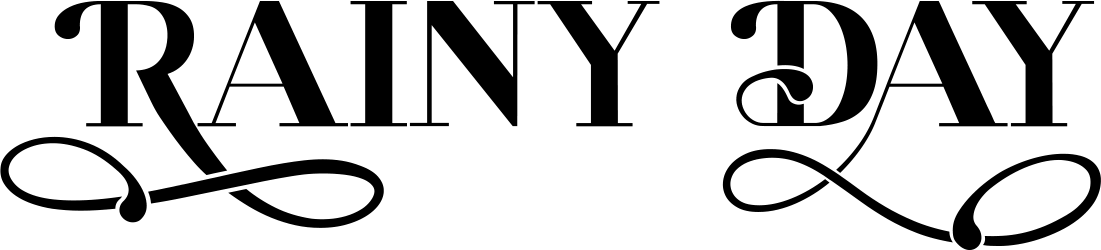
Rainy Day Font
Rainy Day font is a combination of classic and serif fonts. In some letters, you can see thin and thick lines, which indicate the properties of the didone font. We suggest this free classic font for the titles of magazines, the headlines of websites, T-shirts, luxury invitation cards, and business cards of jewelry brands.